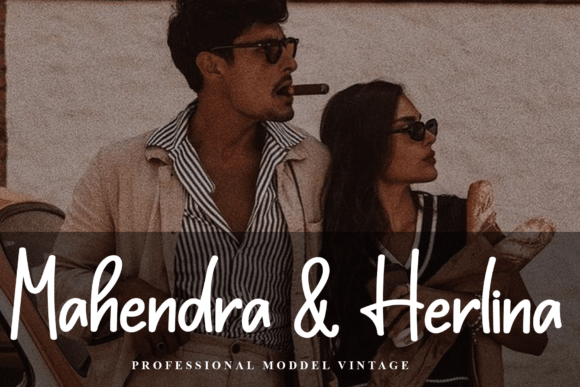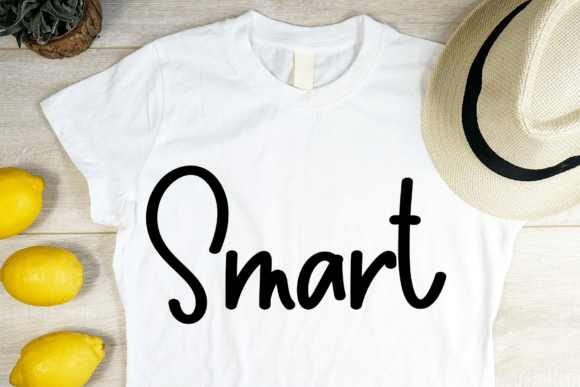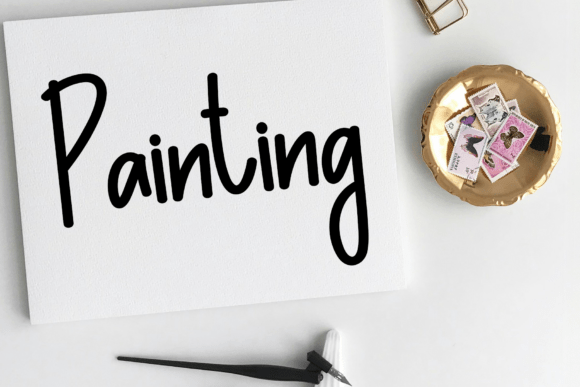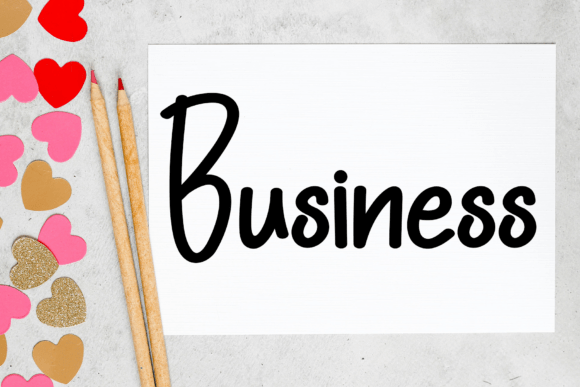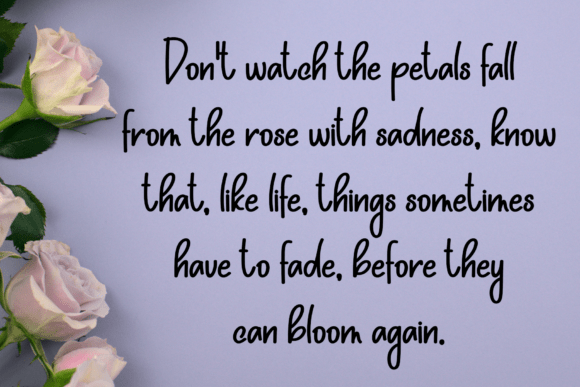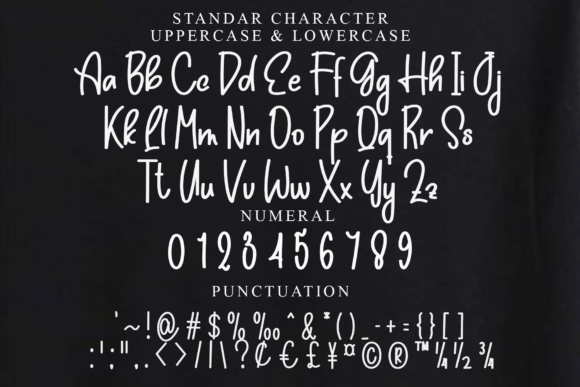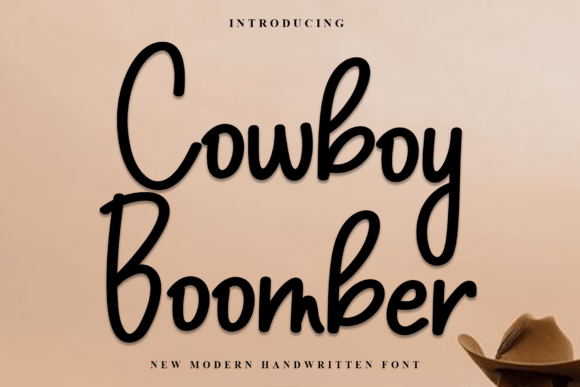
Cowboy Boomber Font: Adding a Touch of Warmth and Friendliness to Your Designs
Are you tired of using the same old fonts in your designs? Look no further than the Cowboy Boomber font, a casual and creative typeface that exudes warmth and friendliness. This charming font is perfect for personal projects, invitations, social media graphics, and any other design that needs a touch of playfulness.
The Unique Characteristics of Cowboy Boomber Font
Cowboy Boomber font features round, playful strokes that create a relaxed and approachable feel. Its hand-drawn aesthetic adds a fun and unique touch to any design, making it perfect for designers and crafters who want to add a personal touch to their work. The font’s charming and whimsical feel is sure to capture the attention of your audience and leave a lasting impression.
Perfect for Personal Projects and Creative Designs
Cowboy Boomber font is ideal for personal projects, such as creating invitations, greeting cards, and social media graphics. Its casual and creative vibe makes it perfect for designers who want to add a touch of warmth and friendliness to their designs. Whether you’re creating a birthday invitation or a social media post, this font is sure to make your design stand out.
Advantages of Using Cowboy Boomber Font
There are several advantages to using Cowboy Boomber font in your designs. Some of the benefits include:
- Unique and eye-catching design: The font’s hand-drawn aesthetic and playful strokes make it a standout in any design.
- Warm and friendly feel: The font’s round and playful strokes create a relaxed and approachable feel that’s perfect for personal projects and creative designs.
- Easy to read: Despite its playful design, the font is easy to read, making it perfect for body text and headlines.
Tips for Using Cowboy Boomber Font
Here are some tips for using Cowboy Boomber font in your designs:
- Use it for headings and titles: The font’s playful design makes it perfect for headings and titles, where you want to grab the attention of your audience.
- Pair it with other fonts: Cowboy Boomber font pairs well with other fonts, such as sans-serif fonts, to create a unique and eye-catching design.
- Experiment with different colors: The font’s playful design makes it perfect for experimenting with different colors and color combinations.
- Use it for personal projects: The font’s casual and creative vibe makes it perfect for personal projects, such as invitations, greeting cards, and social media graphics.
Cowboy Boomber font is a unique and creative typeface that adds a touch of warmth and friendliness to any design. Its playful strokes and hand-drawn aesthetic make it perfect for personal projects, invitations, social media graphics, and any other design that needs a touch of playfulness. With its compatibility with various design applications and easy-to-read design, Cowboy Boomber font is a great addition to any designer’s toolkit.
Whether you’re a designer, crafter, or DIY enthusiast, Cowboy Boomber font is a great choice for adding a personal touch to your designs. So why not give it a try and see how it can elevate your designs to the next level?